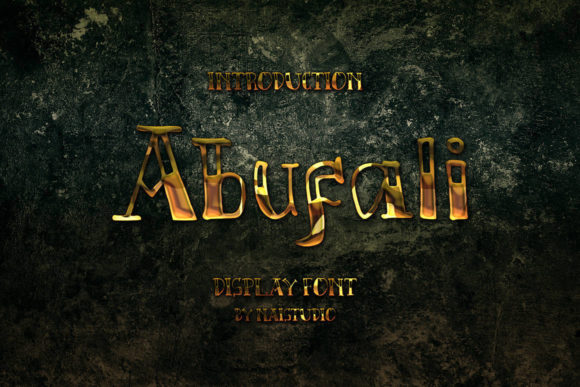
Abufali Font: Adding a Touch of Playfulness and Authenticity to Your Designs
In the world of typography, fonts play a crucial role in conveying the tone and personality of a design. With the vast array of fonts available, it can be challenging to find one that stands out from the rest. However, if you’re looking for a unique and interesting display font that embodies playfulness and authenticity, look no further than Abufali Font. This chunky lettered font is the perfect choice for any project you can think of, and it’s sure to make your designs come alive!
The Characteristics of Abufali Font
Abufali Font is a one-of-a-kind display font that boasts a distinctive and eye-catching style. Its chunky letters are carefully crafted to convey a sense of playfulness and authenticity, making it perfect for designers who want to add a touch of personality to their work. The font’s unique characteristics include:
- Chunky letters: Abufali Font features thick, bold letters that are sure to grab attention.
- Playful vibe: The font’s playful style makes it perfect for designs that require a touch of whimsy and fun.
- Authentic feel: Abufali Font has an authentic feel that makes it suitable for designs that require a sense of realism and honesty.
Why Choose Abufali Font?
So, why should you choose Abufali Font for your next project? Here are just a few reasons:
- Versatility: Abufali Font is versatile and can be used for a wide range of projects, from posters and flyers to social media graphics and website headers.
- Uniqueness: The font’s unique style ensures that your designs will stand out from the crowd and grab attention.
- Easy to read: Despite its chunky style, Abufali Font is easy to read, making it perfect for designs that require a clear and concise message.
How to Use Abufali Font in Your Designs
Using Abufali Font in your designs is easy. Here are a few tips to get you started:
- Pair it with a simple font: Pair Abufali Font with a simple font to create a striking contrast and add visual interest to your design.
- Use it as a headline font: Abufali Font is perfect for headlines and titles, where its chunky style can really make an impact.
- Experiment with colors: Abufali Font looks great in bold, bright colors, so don’t be afraid to experiment and find the perfect hue for your design.
Abufali Font for Crafters and Designers
Abufali Font is not just for designers; it’s also perfect for crafters who want to add a personal touch to their projects. Whether you’re creating handmade cards, scrapbooking pages, or DIY crafts, Abufali Font is a great choice. Its unique style and playful vibe make it perfect for:
- Handmade cards: Add a personal touch to your handmade cards with Abufali Font.
- Scrapbooking: Use Abufali Font to add a touch of personality to your scrapbooking pages.
- DIY crafts: Abufali Font is perfect for DIY crafts, such as wood signs, iron-on designs, and more.
In conclusion, Abufali Font is a unique and interesting display font that embodies playfulness and authenticity. Its chunky letters and playful vibe make it perfect for designers and crafters who want to add a touch of personality to their work. With its versatility, uniqueness, and ease of use, Abufali Font is sure to become a favorite in your font collection. So why not give it a try and see how it can make your designs come alive?